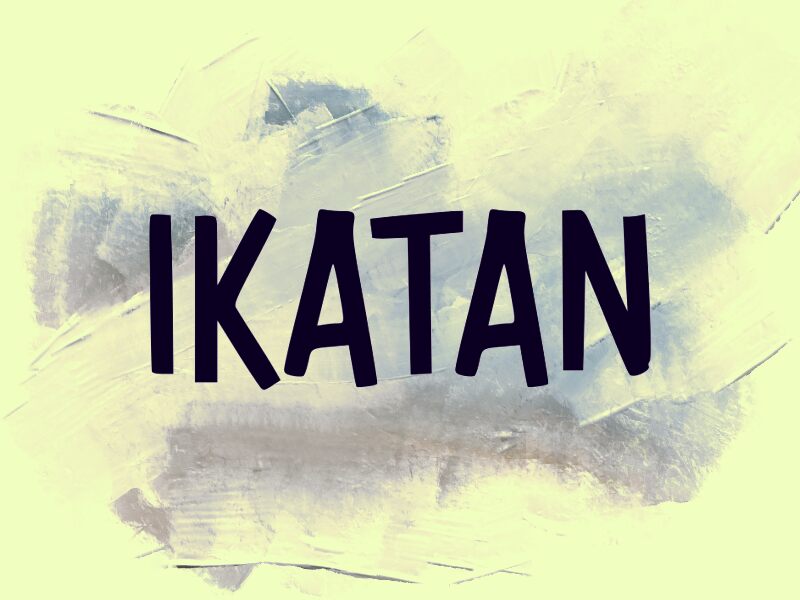
IKATAN
Ikatan font by wep is a display typeface with a cartoon style. With its condensed, organic form and irregular shapes, the free font manages to introduce an artistic handcrafted vibe. One can find an overall rustic appearance that suits multiple design styles in this lovely font.
More suitable projects are logos, headlines, banners, packaging designs, magazine covers and titles. The elements are also promising for badges/labels/patches/stickers, printouts such as posters and flyers, apparel items like T-shirts and hoodies as well as any typographic digital or print artwork in general.